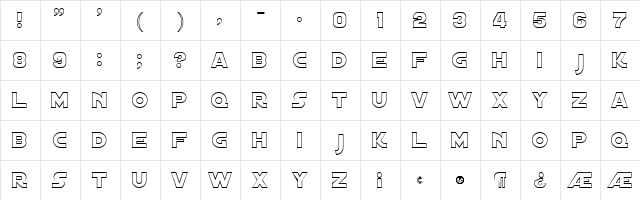
Distant Galaxy Outline Regular
Design Context for Distant Galaxy Outline Typeface
Distant Galaxy Outline brings ornamental detail and strong personality to headlines and identities, where visual impact matters more than quiet functionality.
Font Pairing: Pair with a clean neutral sans-serif for body copy to let Distant Galaxy Outline's character lead without overwhelming the composition.
Pro Tip: Treat Distant Galaxy Outline as the centrepiece of your typographic hierarchy. One strong heading set in a decorative face can carry an entire layout.